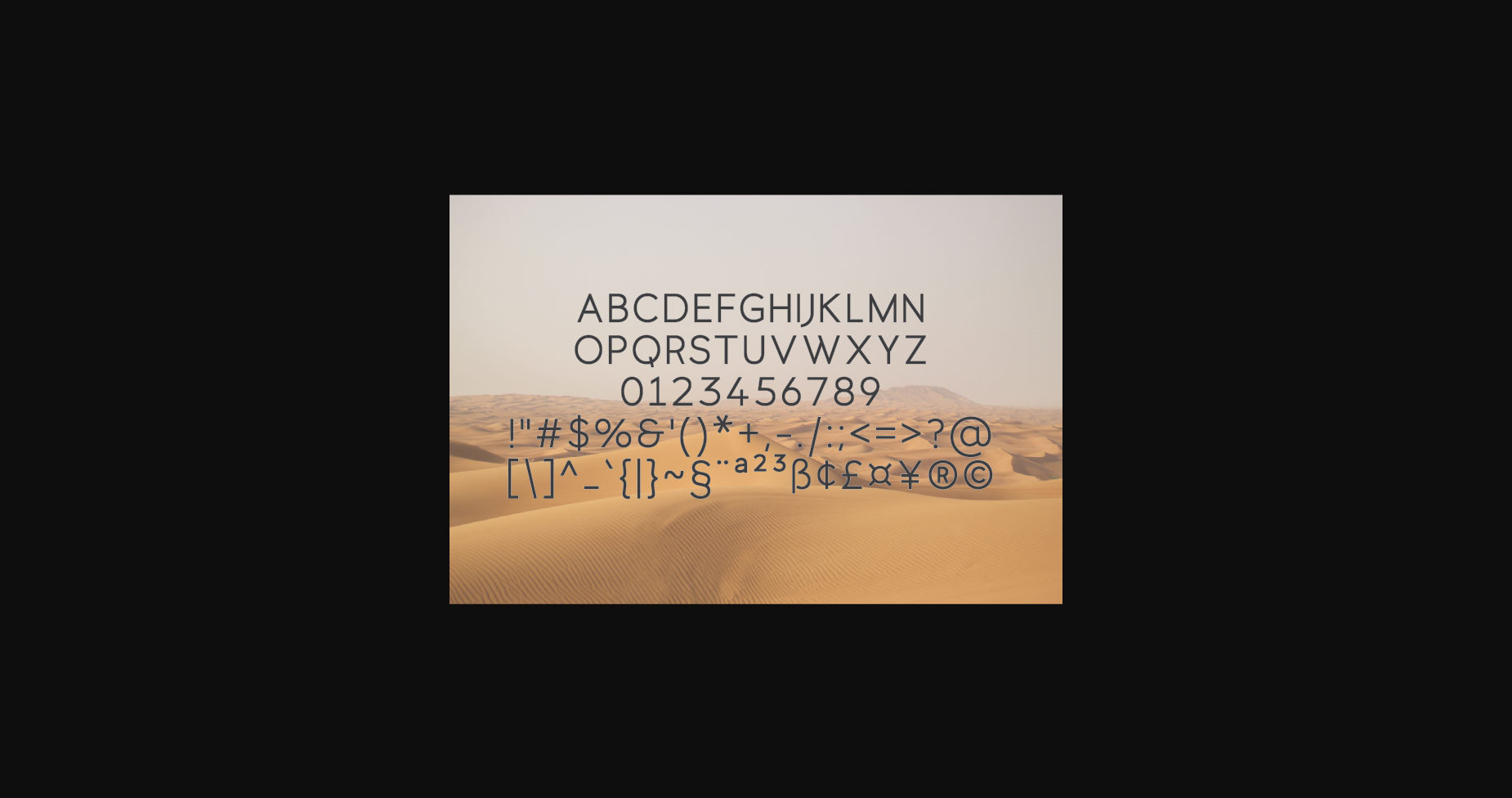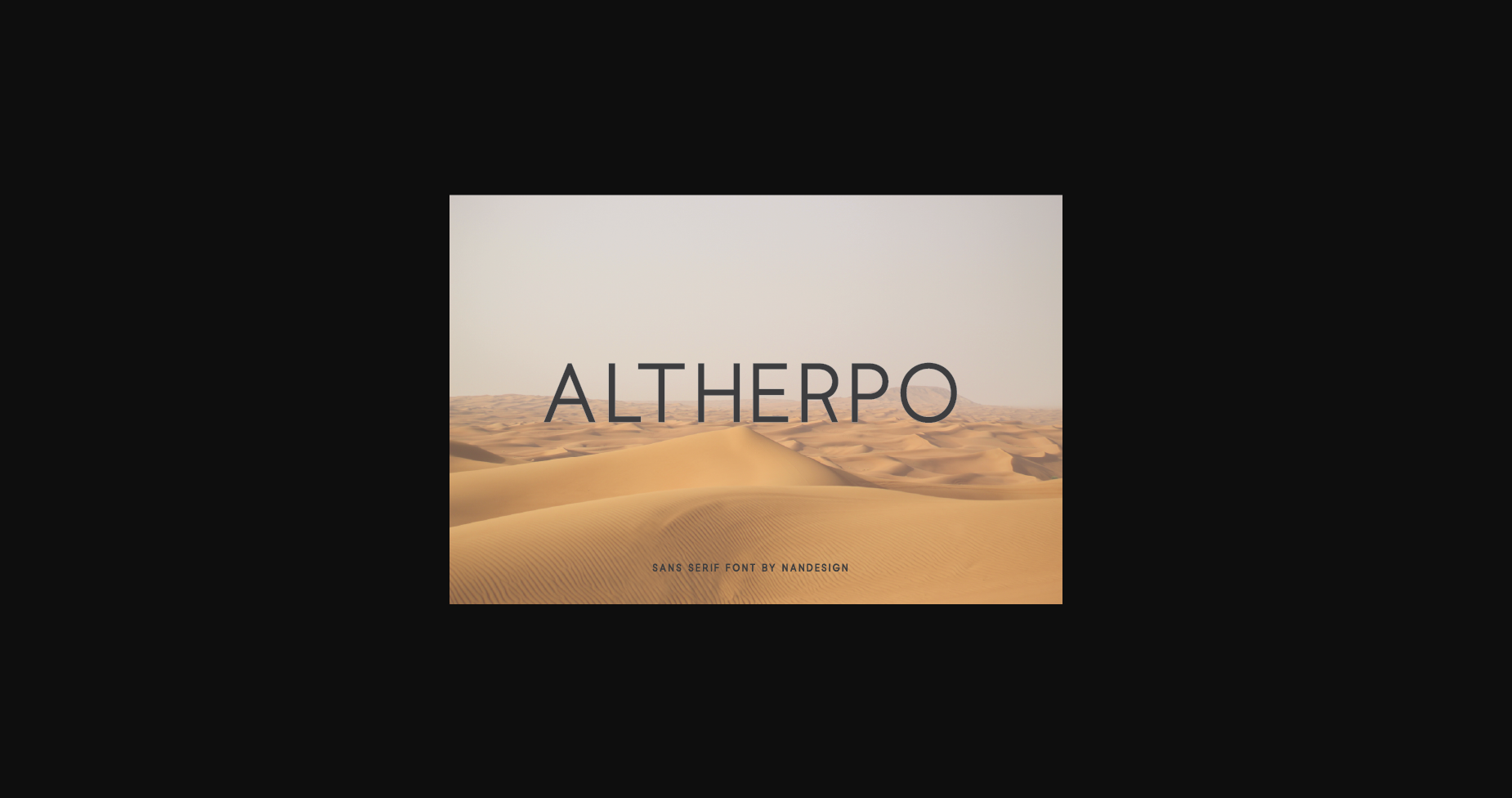
About Altherpo Font
Altherpo is a simple and neat sans serif font. It can easily be matched to an incredibly large set of projects, so add it to your creative ideas and notice how it makes them stand out!